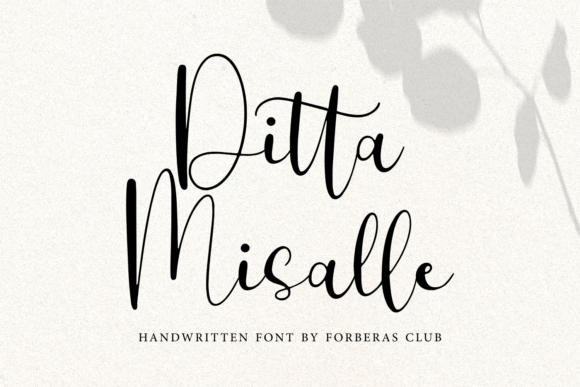
**Dive into the World of Ditta Misalle: A Script Font Brimming with Elegance and Timeless Charm**
In the realm of digital artistry, where fonts hold the power to transform words into captivating expressions, Ditta Misalle emerges as a radiant star, enchanting all who behold its beauty. This flowing handwritten script font, meticulously crafted by the talented designers at Forberas Club, is a symphony of elegance and timeless charm, ready to elevate your creative projects to new heights.
**Unleash Your Creativity with a Font that Inspires**
With its graceful curves and delicate flourishes, Ditta Misalle possesses an inherent allure that captivates the senses. It's a font that speaks to the heart, evoking emotions and stirring the imagination. Whether you're designing wedding invitations, creating personalized gifts, or crafting social media posts that demand attention, Ditta Misalle is your ultimate companion, adding a touch of sophistication and charm to every project you undertake.
**Embrace the Versatility of a Font that Adapts to Your Every Need**
Ditta Misalle is not merely a font; it's a versatile chameleon, effortlessly adapting to a myriad of creative endeavors. Its inherent elegance lends itself beautifully to formal invitations and certificates, while its playful spirit shines through in personal branding and social media graphics. Whether you're a seasoned designer or just starting your creative journey, Ditta Misalle empowers you to express yourself with elegance and flair, transforming your ideas into stunning visual masterpieces.
**Experience the Joy of Effortless Customization**
Ditta Misalle is a font that embraces individuality, allowing you to unleash your creativity and make it uniquely yours. With a comprehensive selection of stylistic alternates and ligatures, you can effortlessly customize the font to match your personal style and project requirements. Experiment with different combinations to create monograms, logos, and headers that exude uniqueness and leave a lasting impression.
**Step into a World of Limitless Creative Possibilities**
With Ditta Misalle at your fingertips, the possibilities are boundless. Design eye-catching posters that command attention, create stunning social media graphics that captivate your audience, and craft personalized gifts that touch the hearts of your loved ones. The beauty of this font lies in its ability to transform the ordinary into the extraordinary, leaving a trail of elegance and charm wherever it goes.
**Elevate Your Projects with a Font that Transcends Time**
In a world where trends come and go, Ditta Misalle stands as a testament to timeless beauty. Its classic script style transcends fads and fashions, ensuring that your creative projects retain their allure for years to come. Whether you're designing for print or digital media, Ditta Misalle adds a touch of sophistication that elevates your work to the next level.